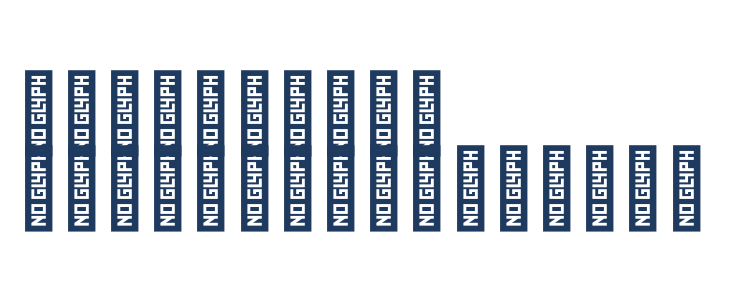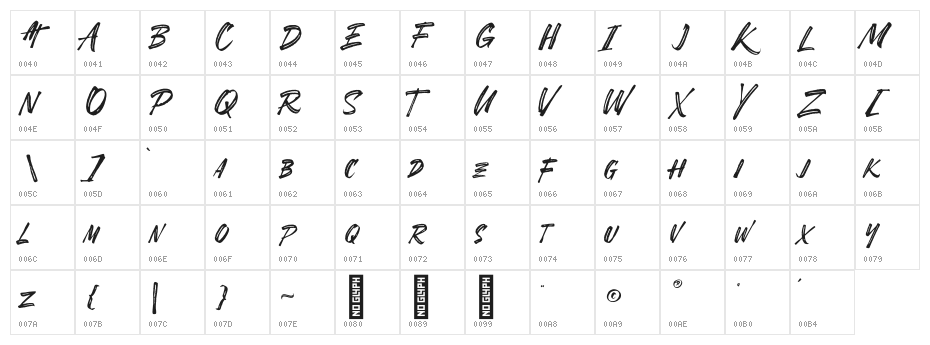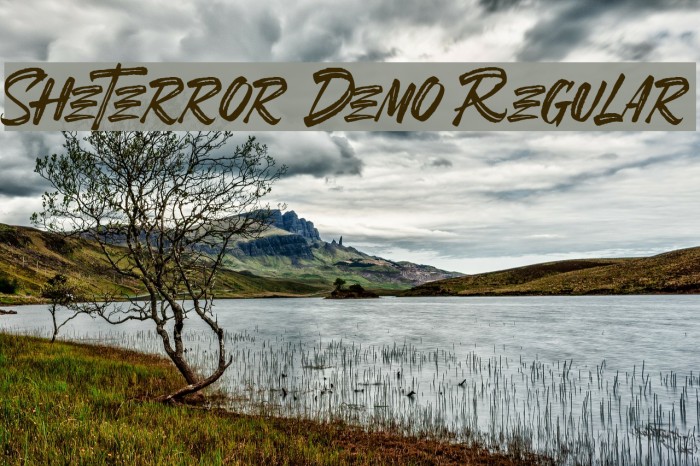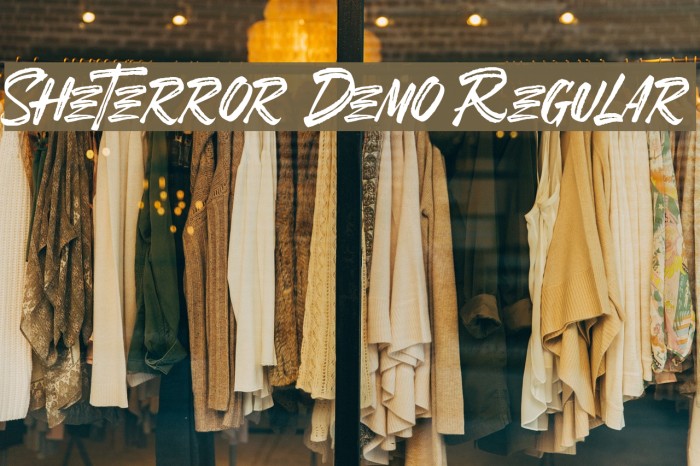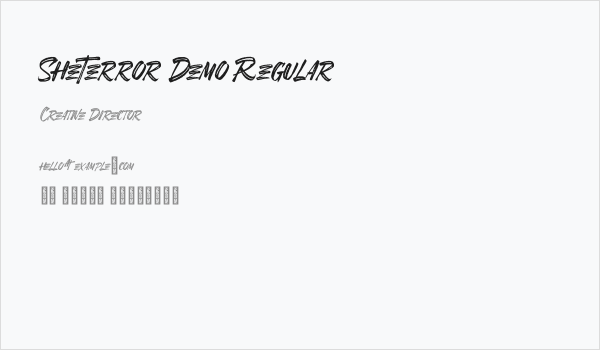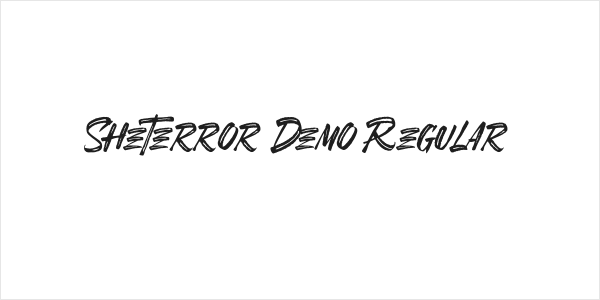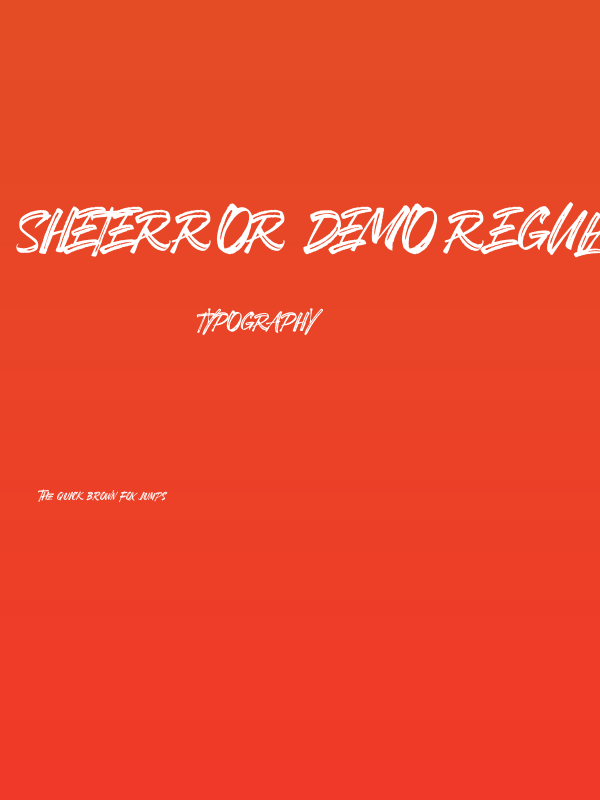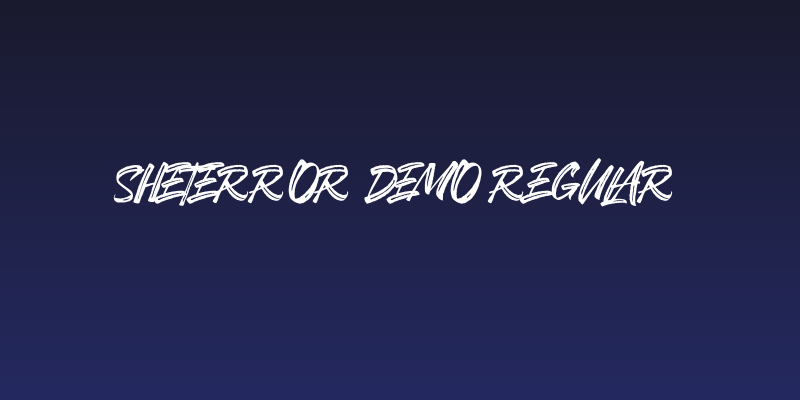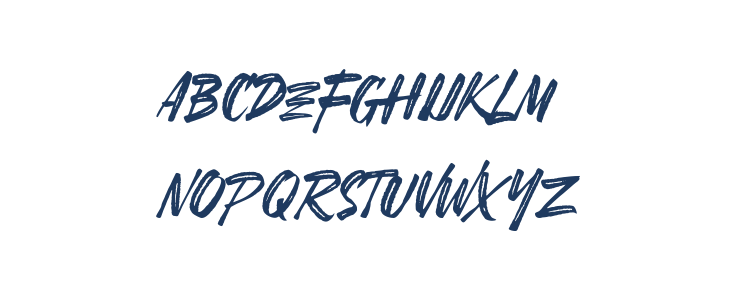
SheTerror Demo Regular Font
SheTerror Demo Regular Description
This font features a bold, dynamic script style with a hand-drawn appearance. The letters are characterized by thick, energetic strokes that convey a sense of movement and intensity. The uppercase and lowercase letters maintain a consistent style, with exaggerated curves and sharp angles that add a dramatic flair. The numbers and special characters are equally expressive, fitting seamlessly with the overall aesthetic. This font's unique style makes it stand out, offering a sense of rebellion and creativity.
Proposed ProjectsIdeal for projects that require a bold statement, such as posters, album covers, graffiti art, or branding for edgy and creative industries.